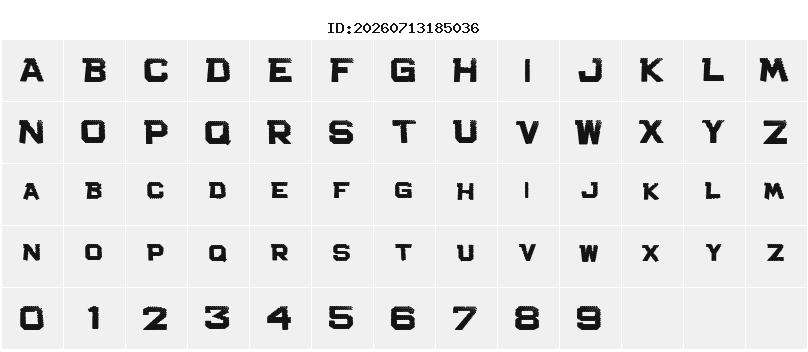
• Font Name: Bachelor Pad Techno JL
• Designer: Jeffrey N. Levine
• Manufacturer: Jeff's Fonts & Dingbats
• Description: "Techno" variation of "Bachelor Pad JL".
Bachelor Pad Techno JL.ttf is a modern, elegant sans-serif font designed for ultimate readability and visual harmony. Perfect for branding, headlines, web design, and print materials.